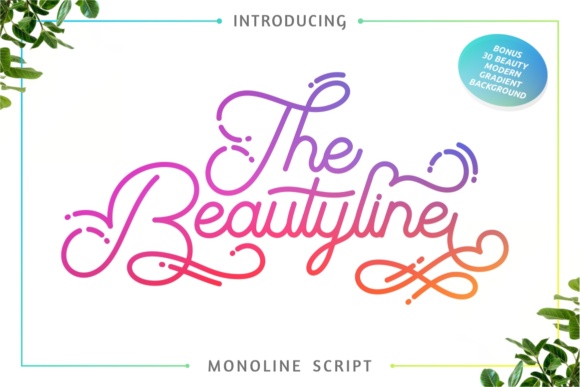
The Beautyline Font: Elevate Your Design with Elegance
The world of typography is vast and diverse, with numerous font styles to choose from, each with its unique characteristics and uses. Among these, script typefaces hold a special place for their elegance and ability to add a touch of sophistication to any design. One such modern monoline script typeface that has been making waves in the design community is the Beautyline Font. This article aims to provide an in-depth look at the Beautyline Font, exploring its features, benefits, and applications in design.
The Beautyline Font: A Modern Monoline Script Typeface
The Beautyline Font is a contemporary take on script typography, characterized by its monoline construction. This means that the letters are created with a single line width, giving the font a sleek and modern appearance. Unlike traditional script fonts that vary in line width, the monoline feature of Beautyline offers a clean and uniform look, making it highly versatile for various design applications.
One of the standout features of the Beautyline Font is its swirly letters. These swirls add a dynamic and fluid element to the font, contributing to its feminine feel. The swirls are gracefully integrated into the letters, enhancing the overall elegance of the font. This characteristic makes Beautyline particularly appealing for designs that require a touch of femininity and sophistication.
Good Readability and Feminine Feel
Readability is a crucial factor in typography, and the Beautyline Font does not compromise on this aspect. Despite its elegant and swirly design, the font maintains good readability, making it suitable for a wide range of applications, from headings and titles to longer texts. The clear distinction between letters and the well-thought-out design ensure that the text remains legible, even at smaller sizes.
The feminine feel of the Beautyline Font is another significant advantage. In a world where branding and personalization are key, having a font that can convey a specific aesthetic or emotion is invaluable. The Beautyline Font, with its soft and flowing lines, can add a touch of grace and elegance to any design, making it perfect for brands or projects that aim to evoke a sense of femininity and sophistication.
Perfect for Giving Your Design an Elegant Touch
Elegance in design is often about striking the right balance between form and function. The Beautyline Font achieves this balance beautifully, offering a design solution that is both aesthetically pleasing and highly functional. Whether you’re working on a luxury brand project, a wedding invitation, or a high-end product catalog, the Beautyline Font can elevate your design to new heights of sophistication.
One of the key benefits of using the Beautyline Font is its versatility. It can be used in a variety of design contexts, from digital platforms like websites and social media to print materials such as brochures and posters. The font’s adaptability makes it a valuable addition to any designer’s toolkit, providing a go-to solution for projects that demand elegance and refinement.
Applications of the Beautyline Font
- Branding and Logo Design: The Beautyline Font can serve as an excellent choice for logos and brand identities that require a sophisticated and elegant look.
- Wedding and Event Invitations: Its feminine and elegant feel makes it perfect for wedding invitations, event posters, and other ceremonial designs.
- Luxury Product Design: For brands that offer high-end products or services, the Beautyline Font can help communicate luxury and exclusivity.
- Packaging Design: The font’s unique style can make product packaging stand out, adding an element of elegance to the overall design.
- Digital Media: Websites, social media graphics, and digital advertisements can all benefit from the Beautyline Font’s modern and elegant appearance.
Tips for Using the Beautyline Font Effectively
To make the most of the Beautyline Font, consider the following tips:
- Pair it with Neutral Fonts: When using the Beautyline Font in a design that requires additional typography, pair it with neutral, sans-serif fonts to maintain visual harmony.
- Use it for Headings and Titles: The Beautyline Font shines in headings and titles, where its elegance and swirly details can be fully appreciated.
- Experiment with Colors: While the font looks stunning in classic black and white, don’t be afraid to experiment with colors that complement its elegant feel.
- Consider the Context: Ensure that the use of the Beautyline Font aligns with the overall tone and message of your design or brand.
| Font Name | The Beautyline Font |
| Author | putracetol |
The Beautyline Font is a versatile and elegant modern monoline script typeface that can add a touch of sophistication to any design. Its swirly letters, good readability, and feminine feel make it an excellent choice for designers looking to elevate their projects. Whether you’re working on branding, invitations, luxury products, or digital media, the Beautyline Font offers a stylish and functional solution. By incorporating this beautiful font into your design toolkit, you’ll be well-equipped to create visually stunning and impactful designs that stand out in a crowded digital landscape.